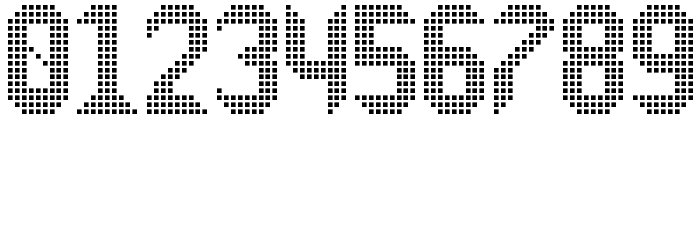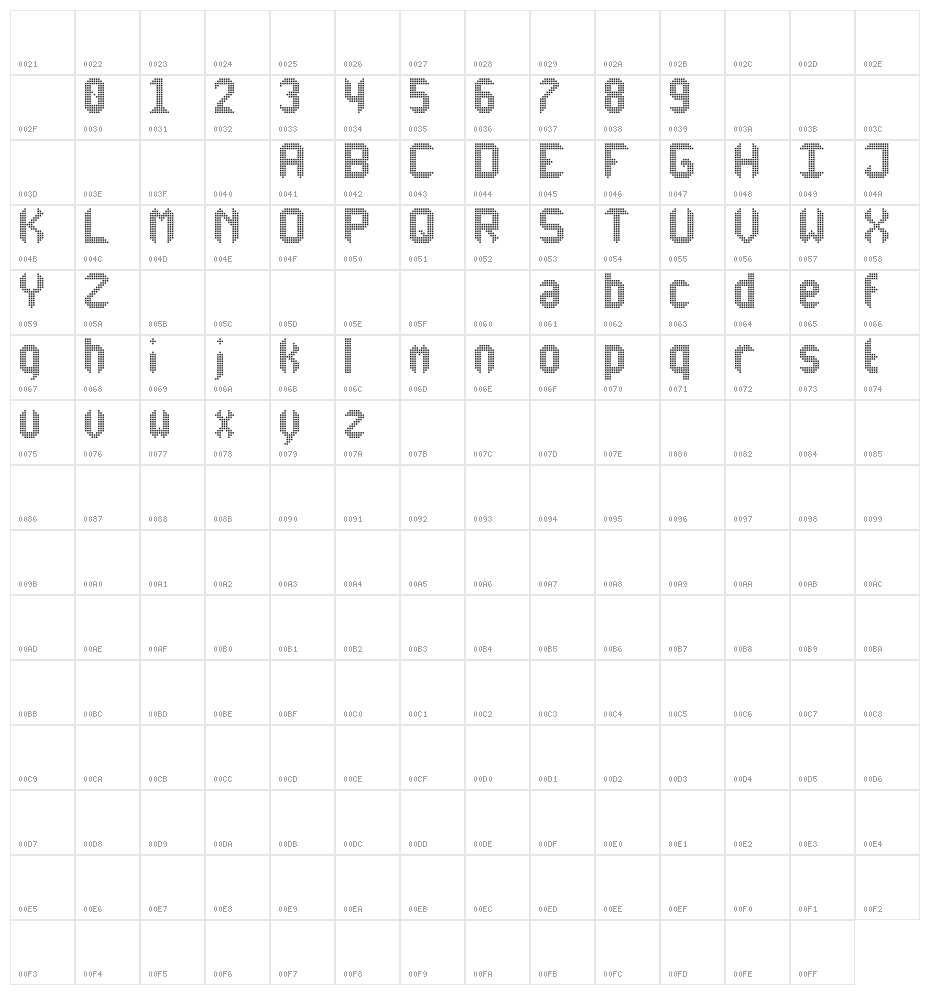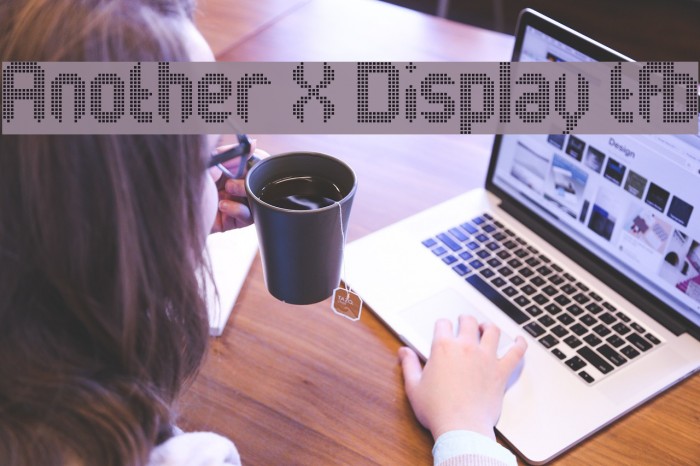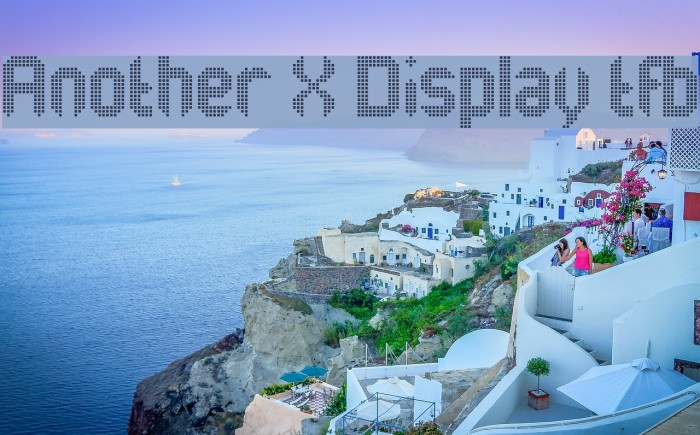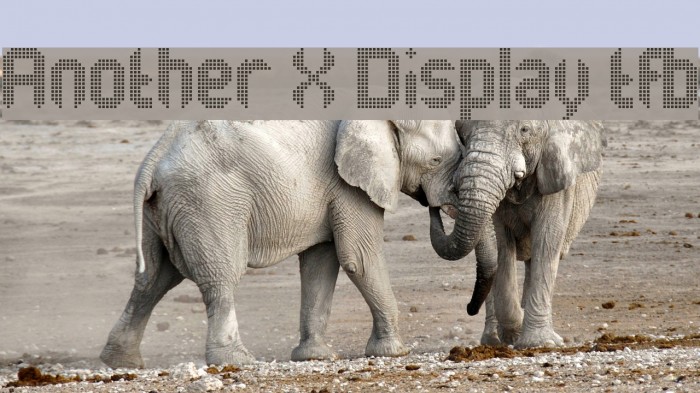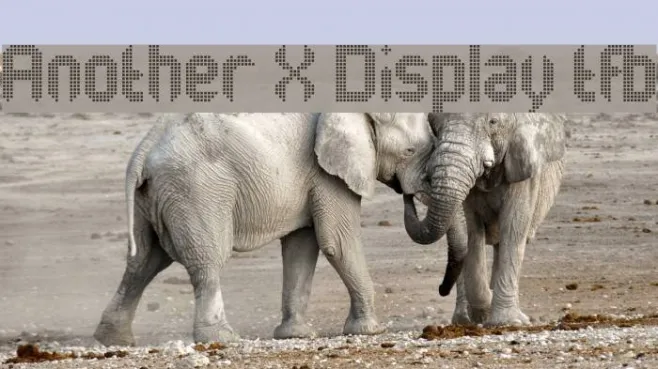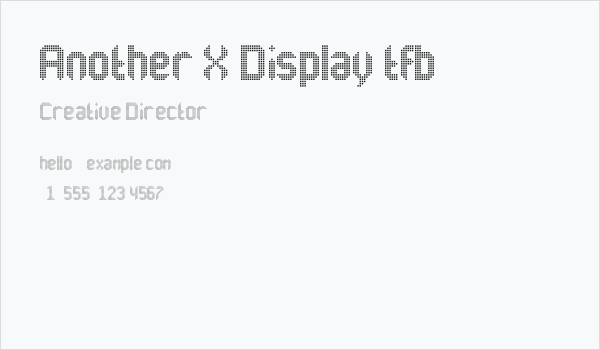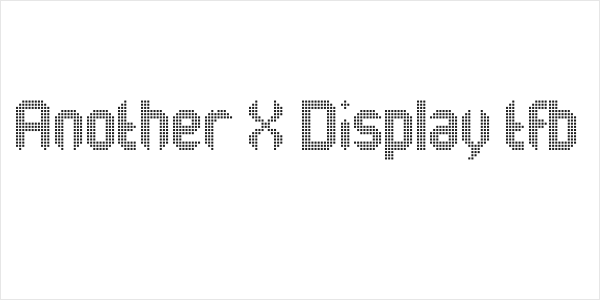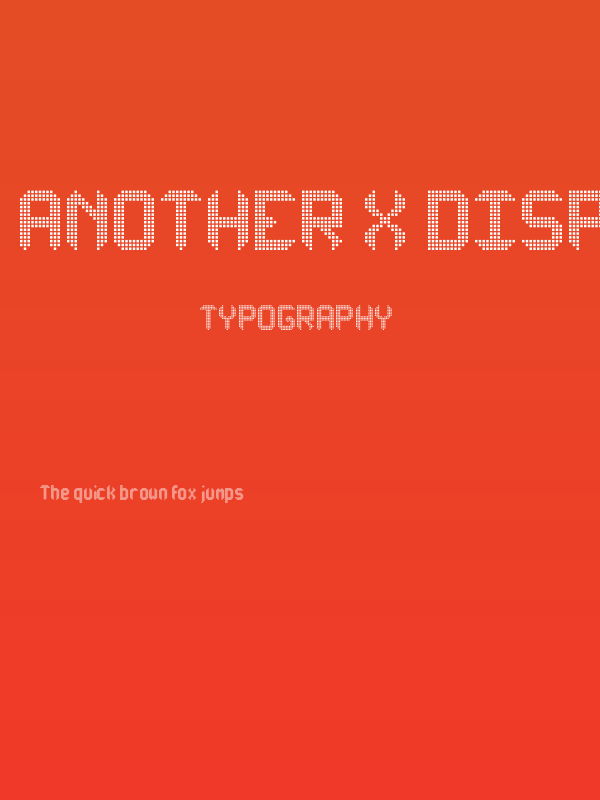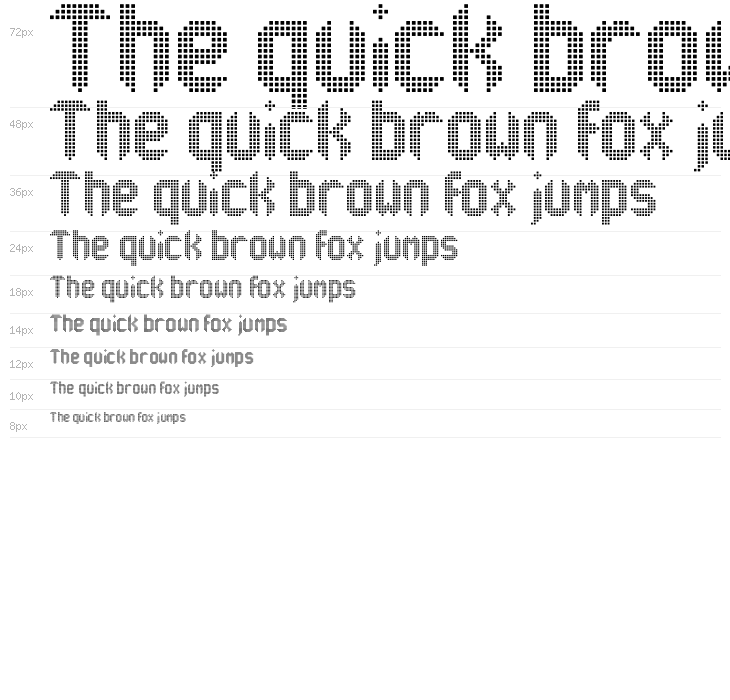
Another X Display tfb Font
Another X Display tfb Description
This font features a unique dot matrix design, reminiscent of digital displays and retro technology. Each character is constructed from a grid of small, evenly spaced dots, creating a pixelated effect that is both modern and nostalgic. The uppercase and lowercase letters maintain consistent proportions, while the numerals and special characters are designed to match the overall aesthetic. The font's geometric precision and uniformity make it ideal for projects that require a digital or tech-inspired look. Its distinct style ensures high readability, even at smaller sizes, while the dot pattern adds a playful and creative touch.
| Use Case | Headlines, Logos, Digital displays |
| Proposed Projects | Ideal for digital displays, tech-themed designs, retro gaming graphics, and modern art projects. |